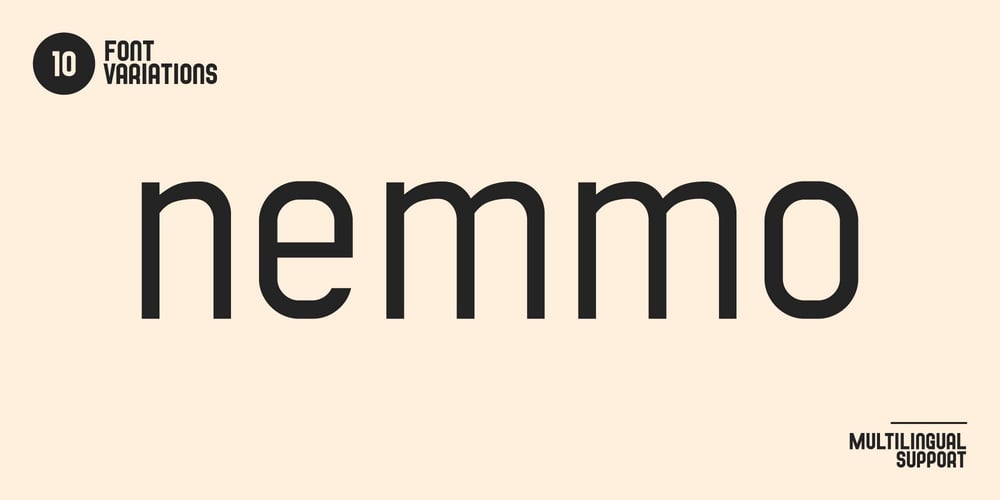
Nemmo Font Family was designed by Iwan Alwan and published by Artiveko. Nemmo contains 10 styles and family package options. Nemmo is a creative sans serif font designed with a modern and dynamic feel. Its clean yet distinctive letterforms make it perfect for branding, logos, editorial layouts, and digital projects. With multilingual support, ligatures, and alternates, Nemmo offers versatility and originality, making it an excellent choice for designers seeking a fresh and contemporary aesthetic.